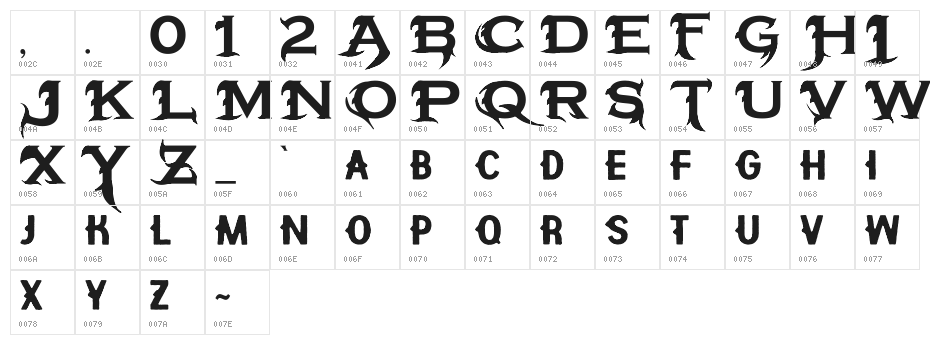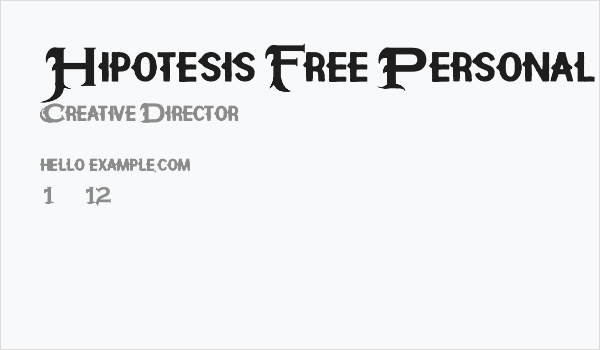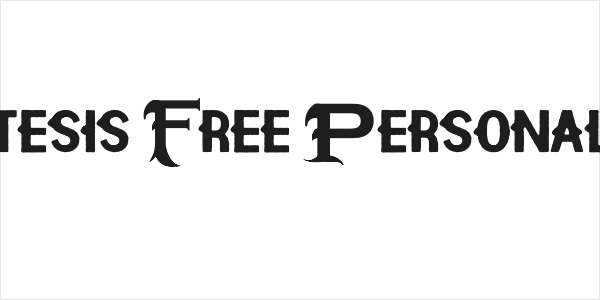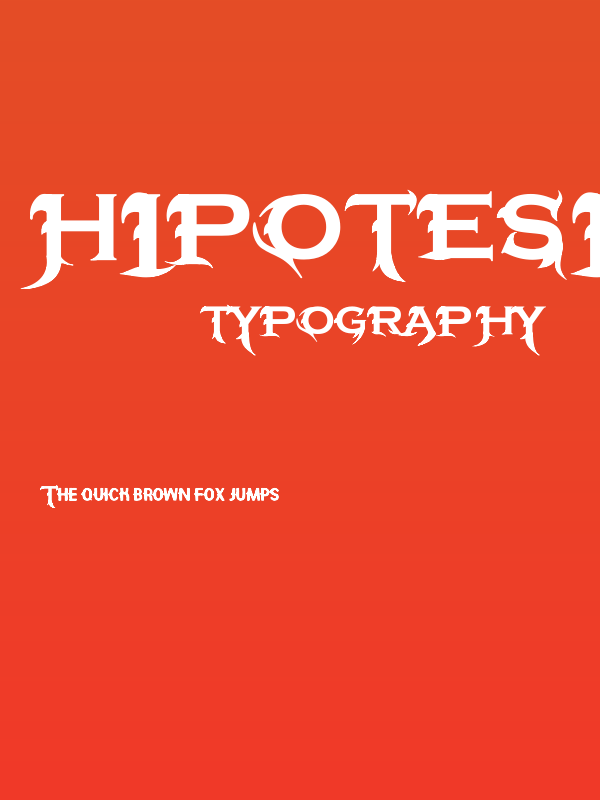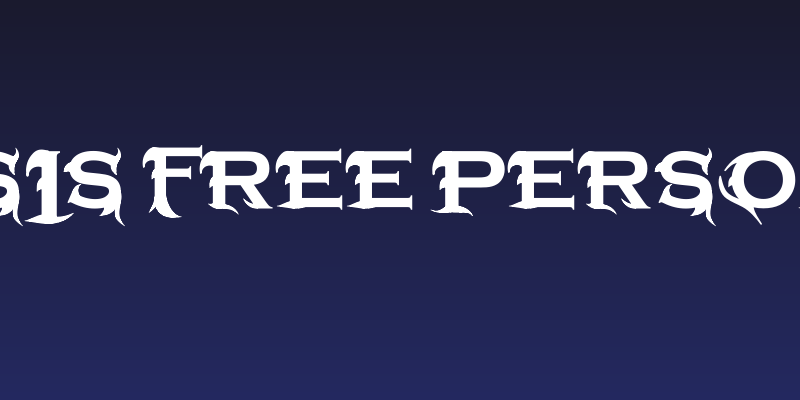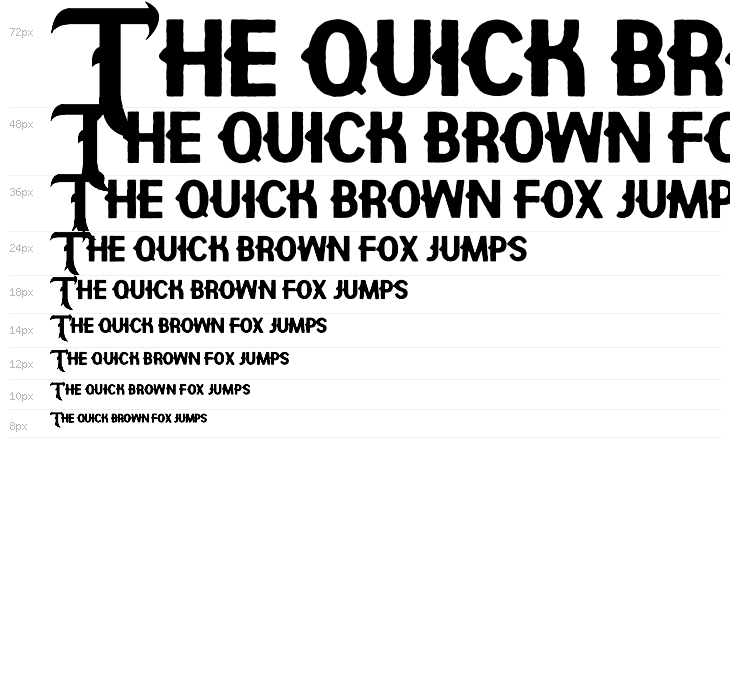
Hipotesis Free Personal Use Font
Hipotesis Free Personal Use Description
This font features a bold and striking design with sharp, angular edges and a gothic influence. The uppercase letters are adorned with unique, thorn-like extensions, giving them a dramatic and edgy appearance. The numbers maintain the boldness with a slightly more rounded approach, yet still retain the overall gothic style. The font's distinct characteristics make it stand out, ideal for projects that require a strong visual impact. Its decorative nature suggests a use in creative and artistic contexts, where a bold statement is desired.
| Overall Style | Gothic, Decorative |
| Proposed Projects | Ideal for album covers, posters, logos, and any project requiring a bold, dramatic aesthetic. |